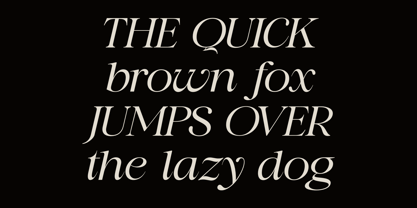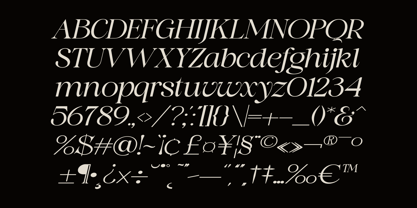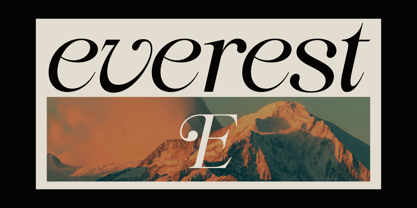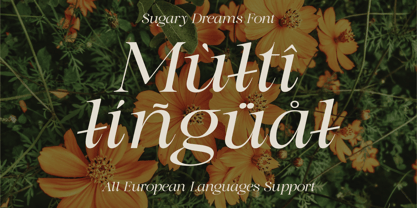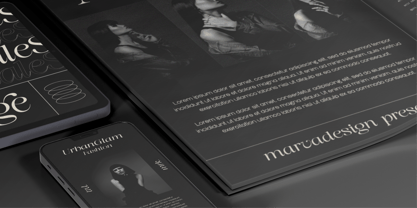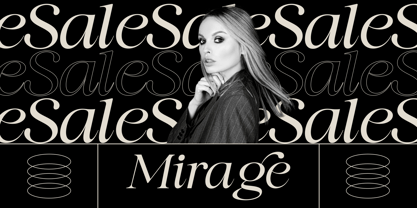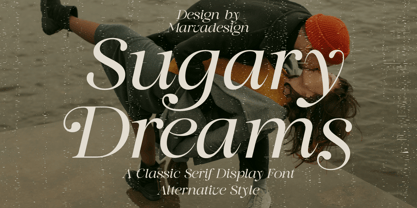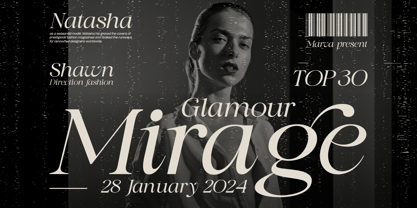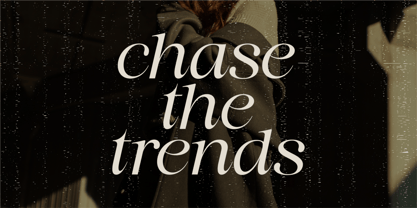
Sugary Dreams
by Marvadesign
The Sugary Dreams Font Family was designed by Febrie Setiawan and published by Marvadesign. Sugary Dreams contains 1 styles. More about this family
Introducing Sugary Dreams is an elegant and refined serif display typeface, embodying a perfect blend of modern sophistication and classic aesthetics. Its gracefully elongated letterforms, characterized by high contrast between thick and thin strokes, create a sense of timeless luxury. The subtle curvature of its serifs and the gentle, sweeping terminals lend the typeface a romantic and sophisticated appearance, making it ideal for editorial design, high-fashion branding, and premium product packaging. Furthermore, the alternative stylistic features add a touch of versatility, allowing designers to experiment with distinctive ligatures and letter variations for a more expressive typographic composition. The font exudes an air of exclusivity and elegance, making it well-suited for upscale visual identities, magazine covers, and artistic promotional materials. The slight vintage texture applied to the designs enhances its nostalgic charm while maintaining a contemporary edge, reinforcing its appeal to both modern and retro-inspired design aesthetics.
Designers: Febrie Setiawan
Foundry: Marvadesign